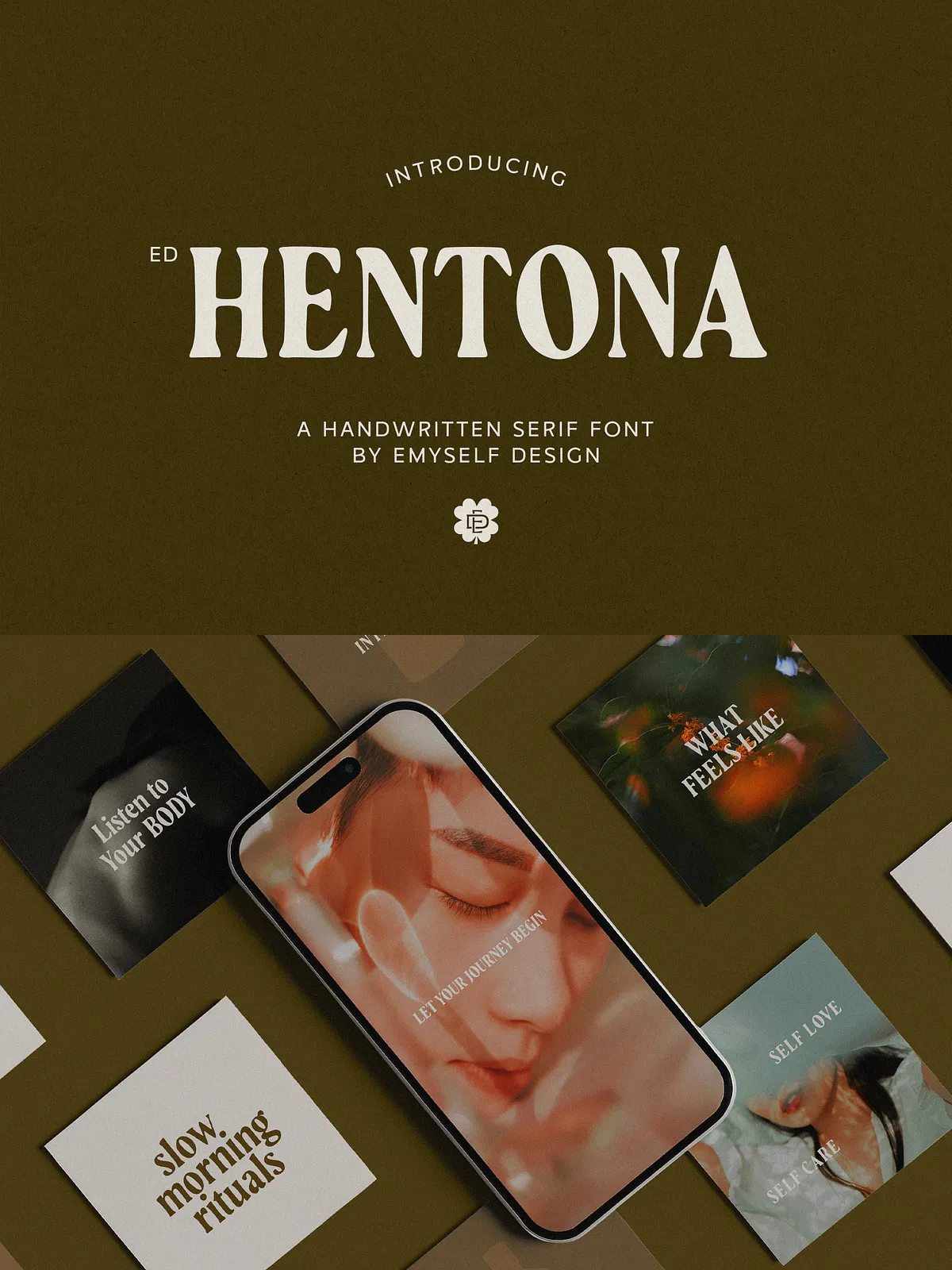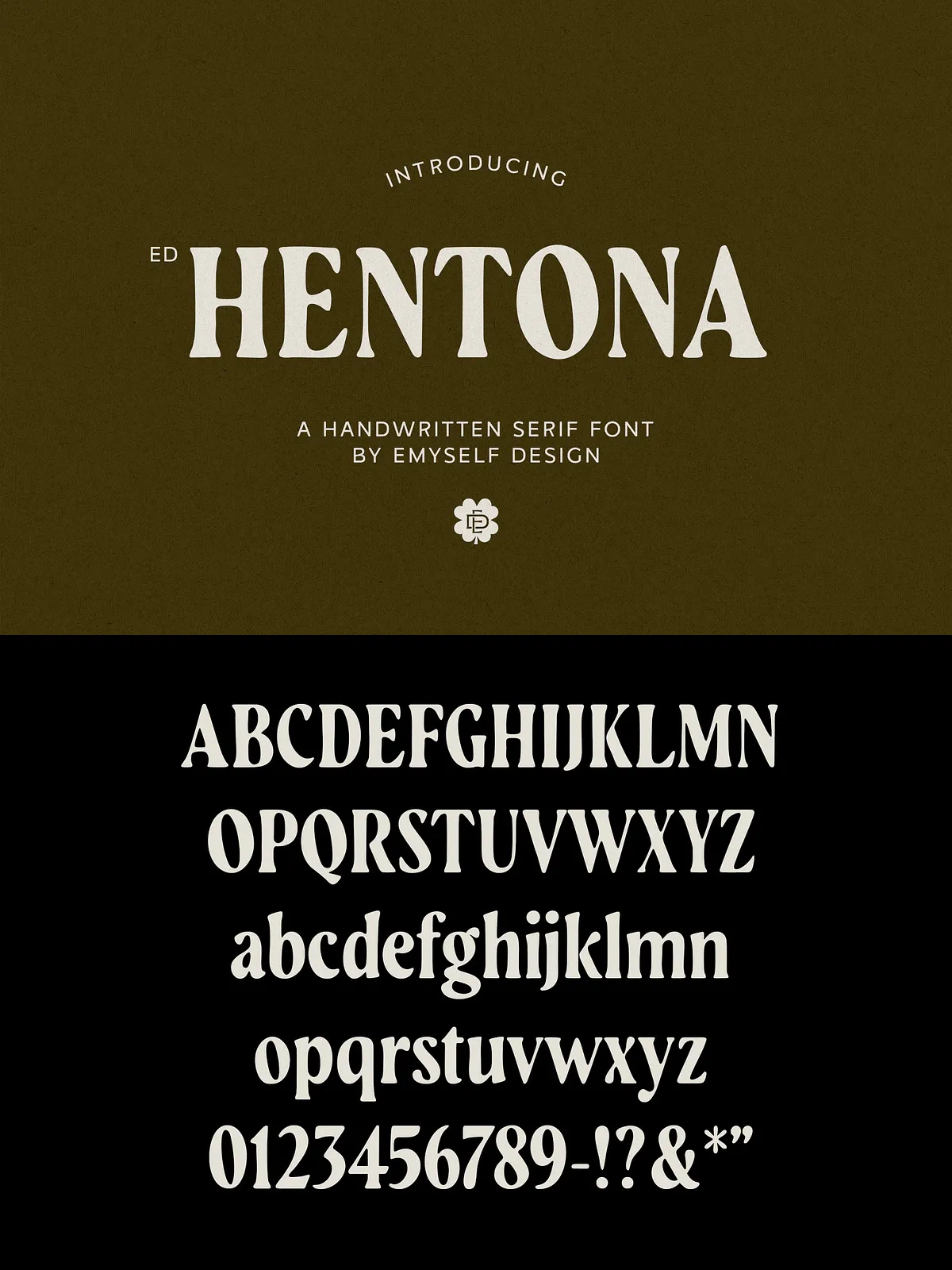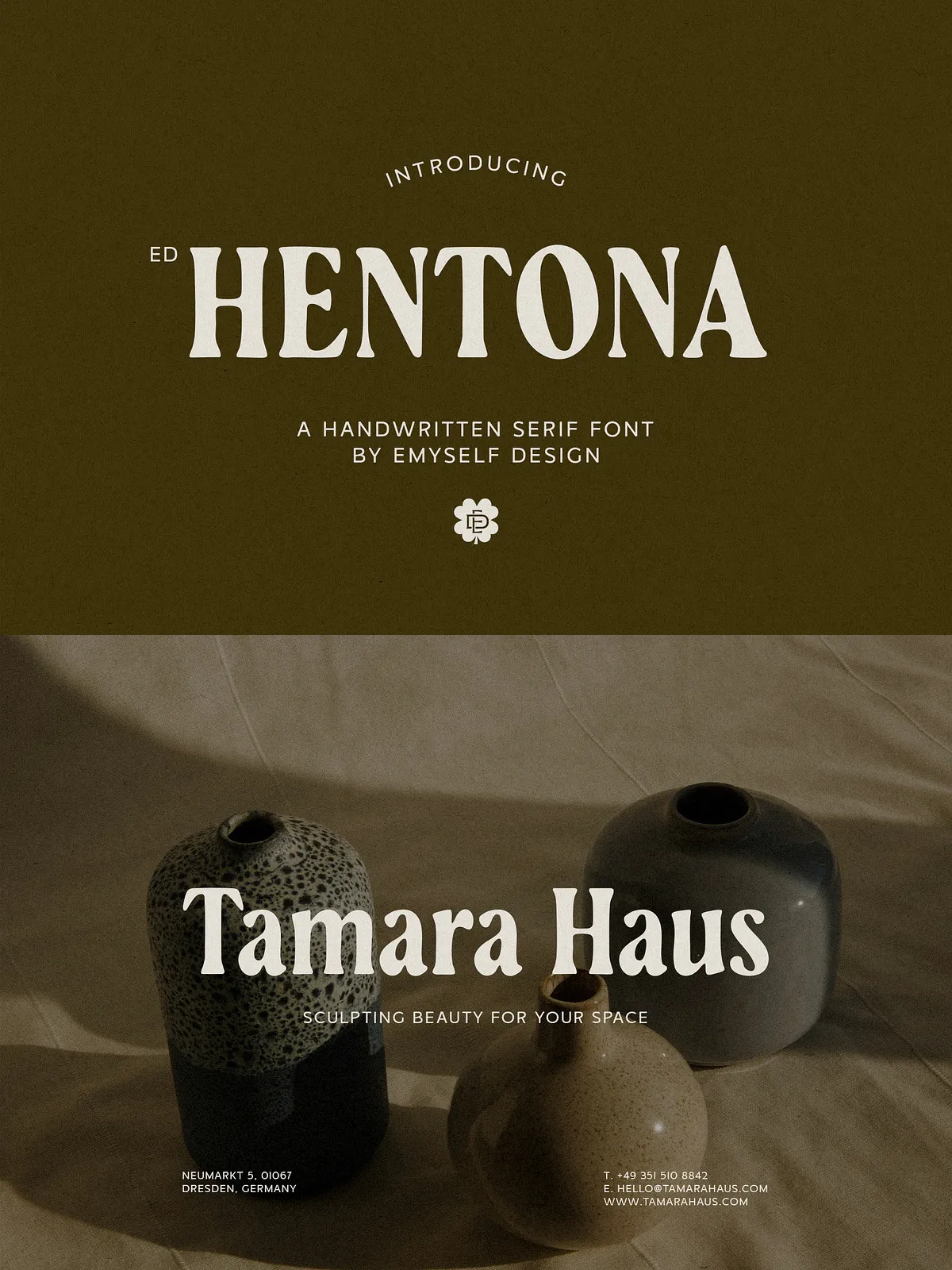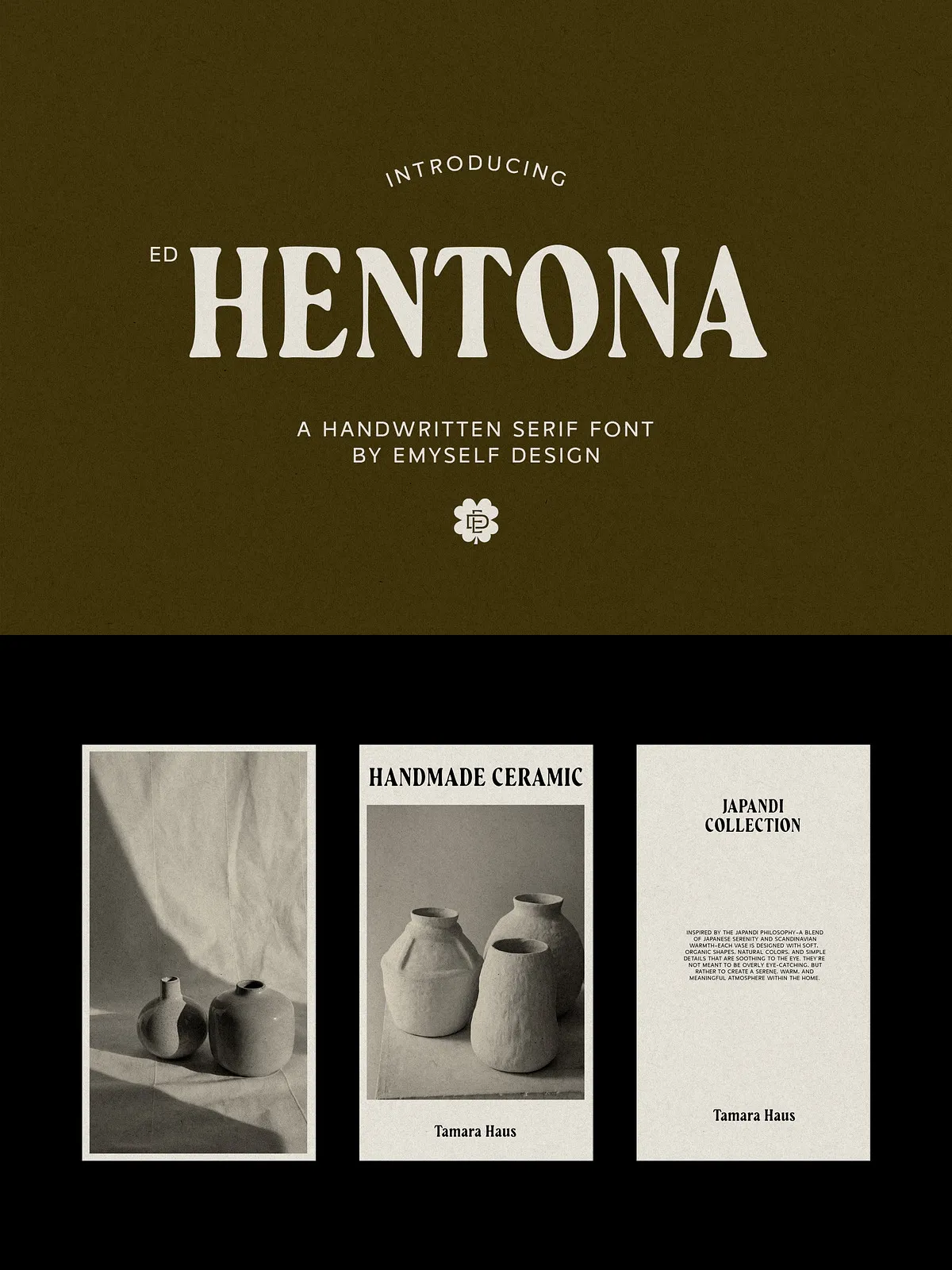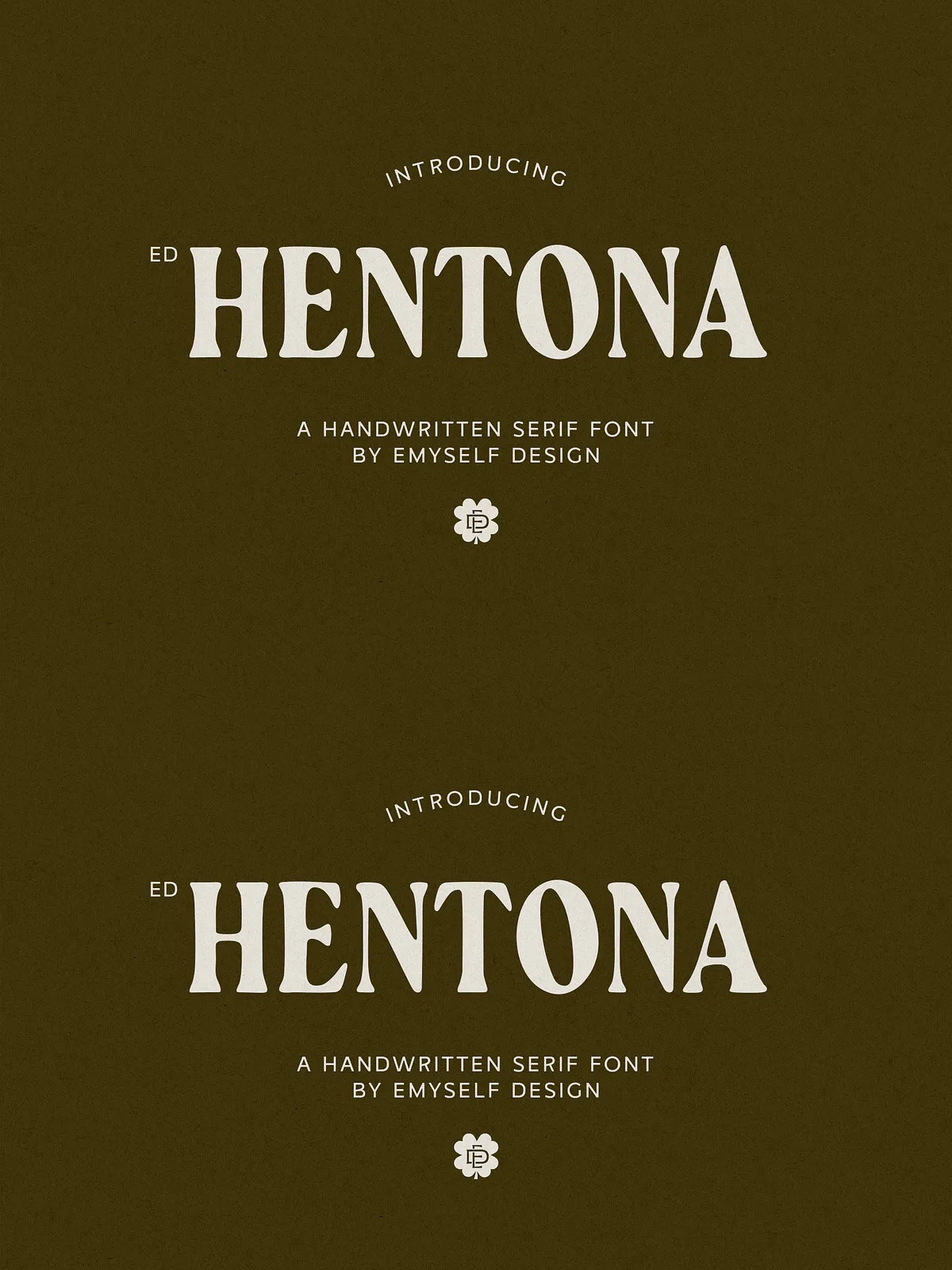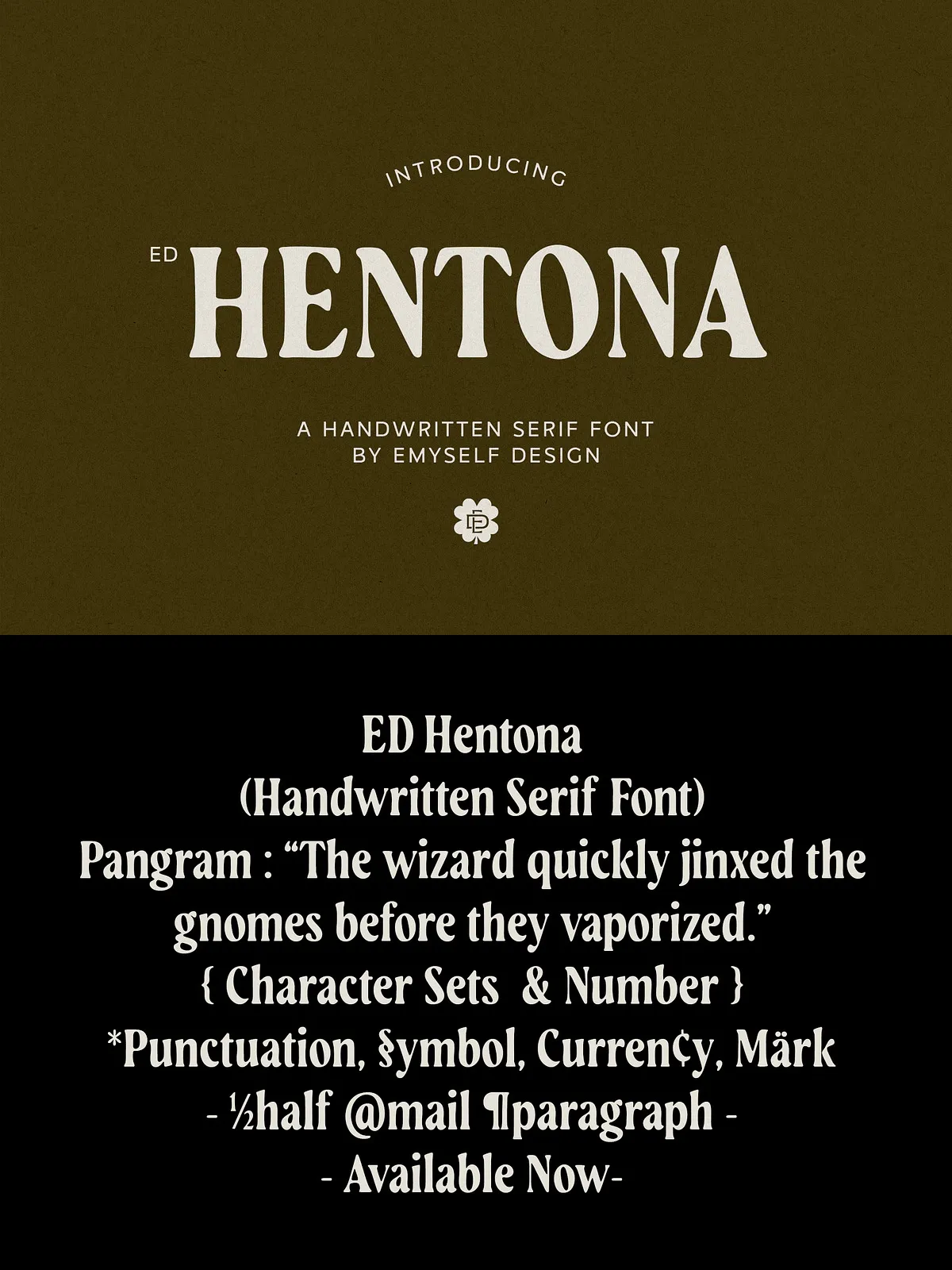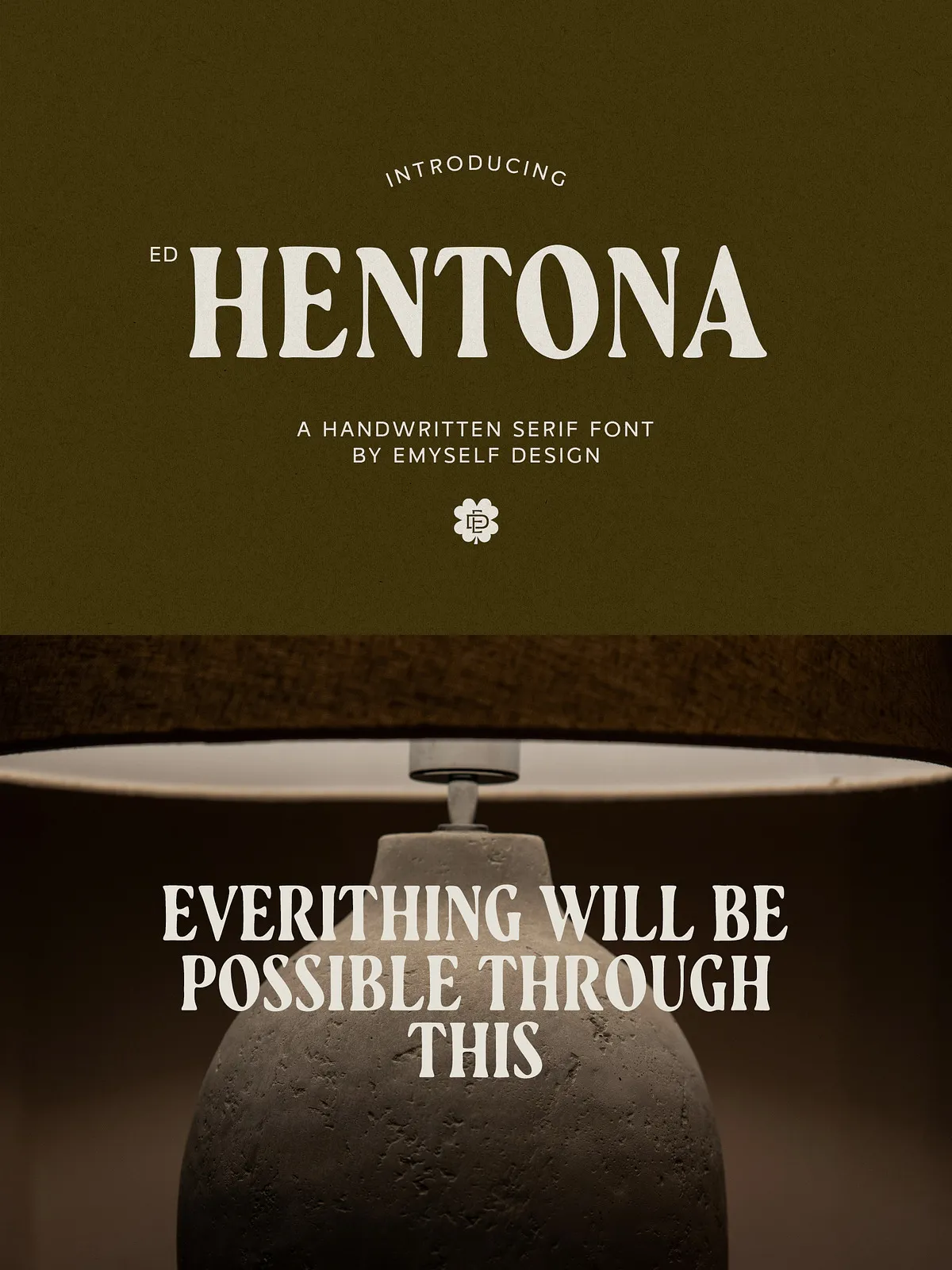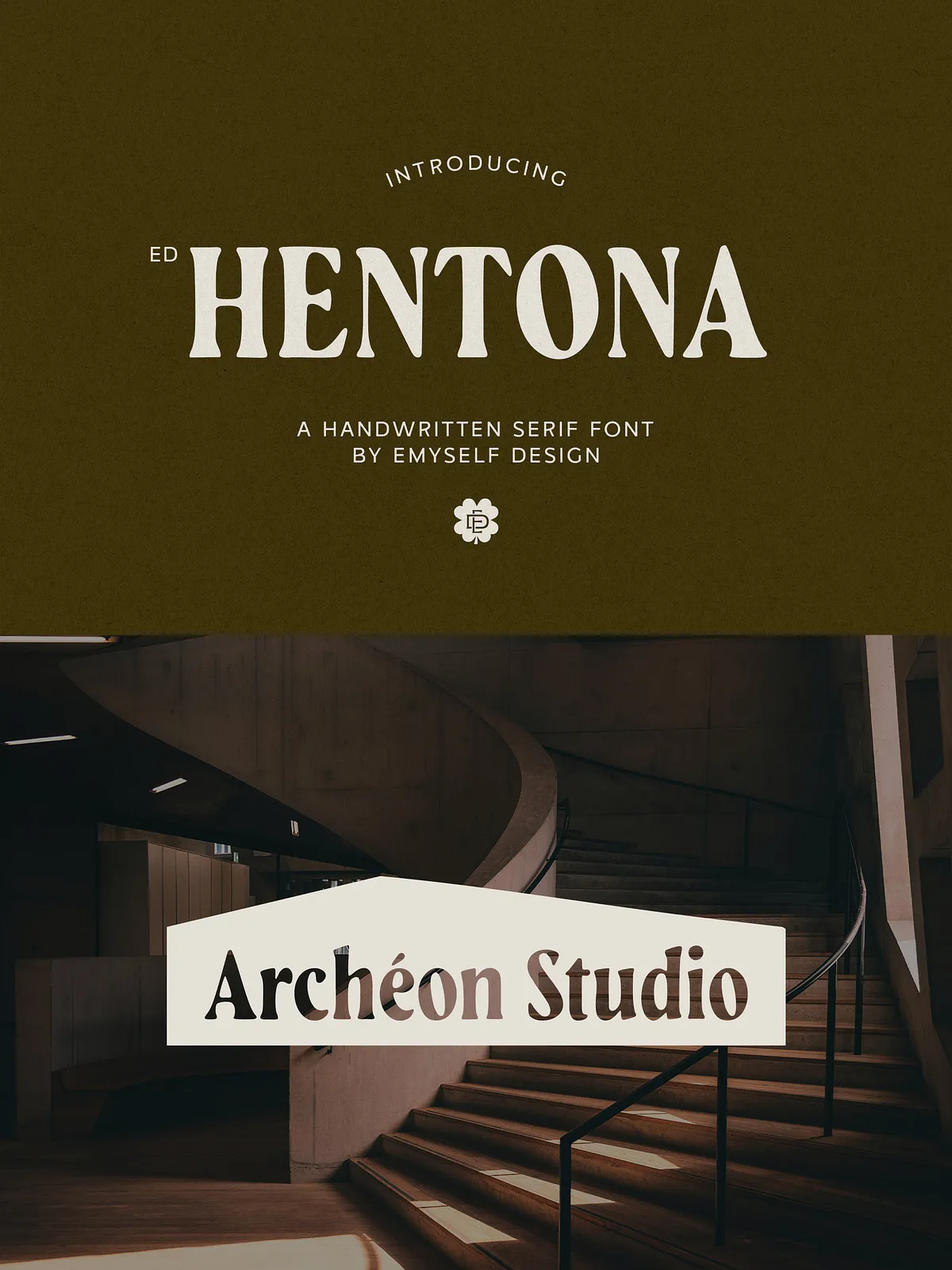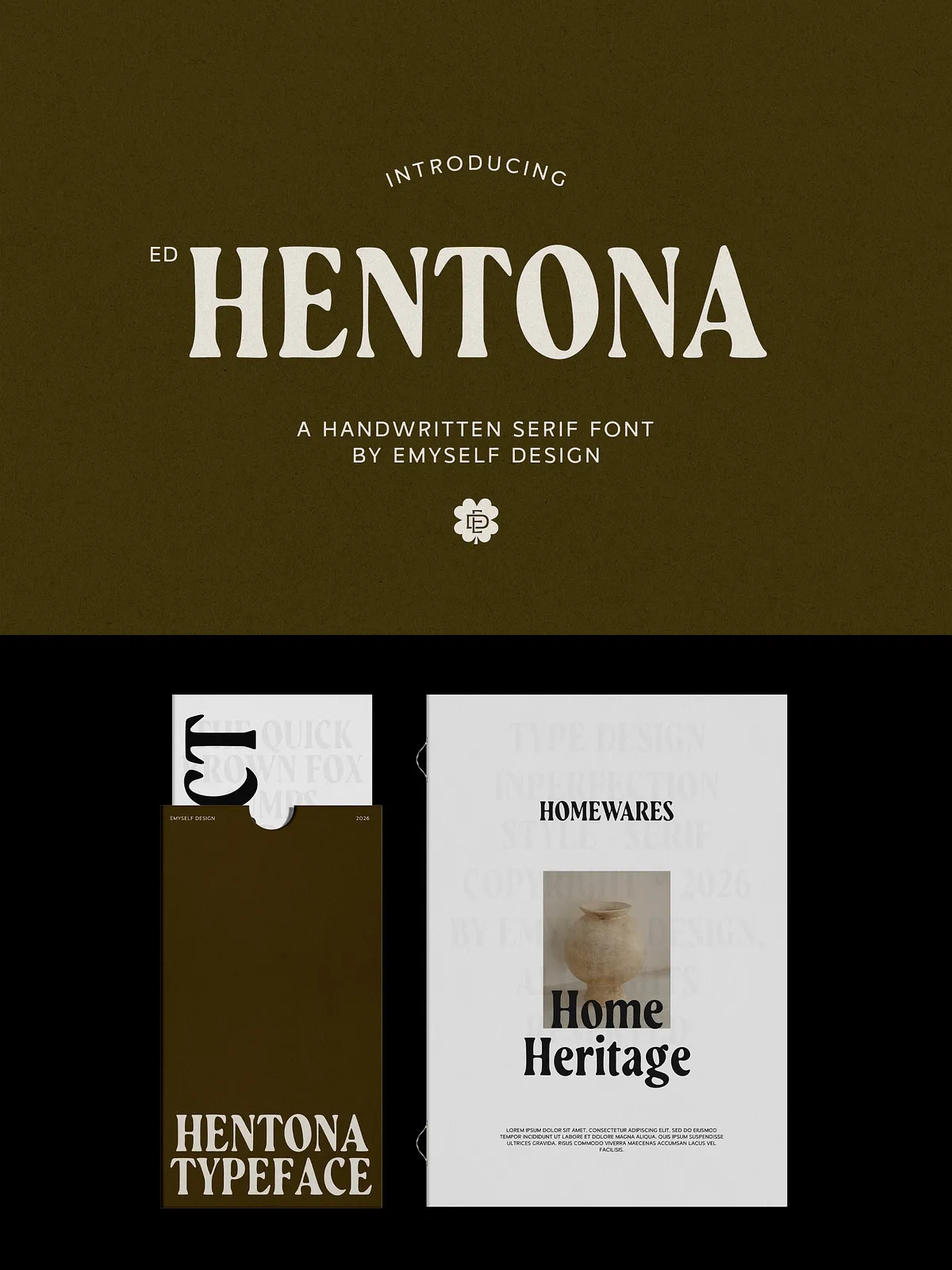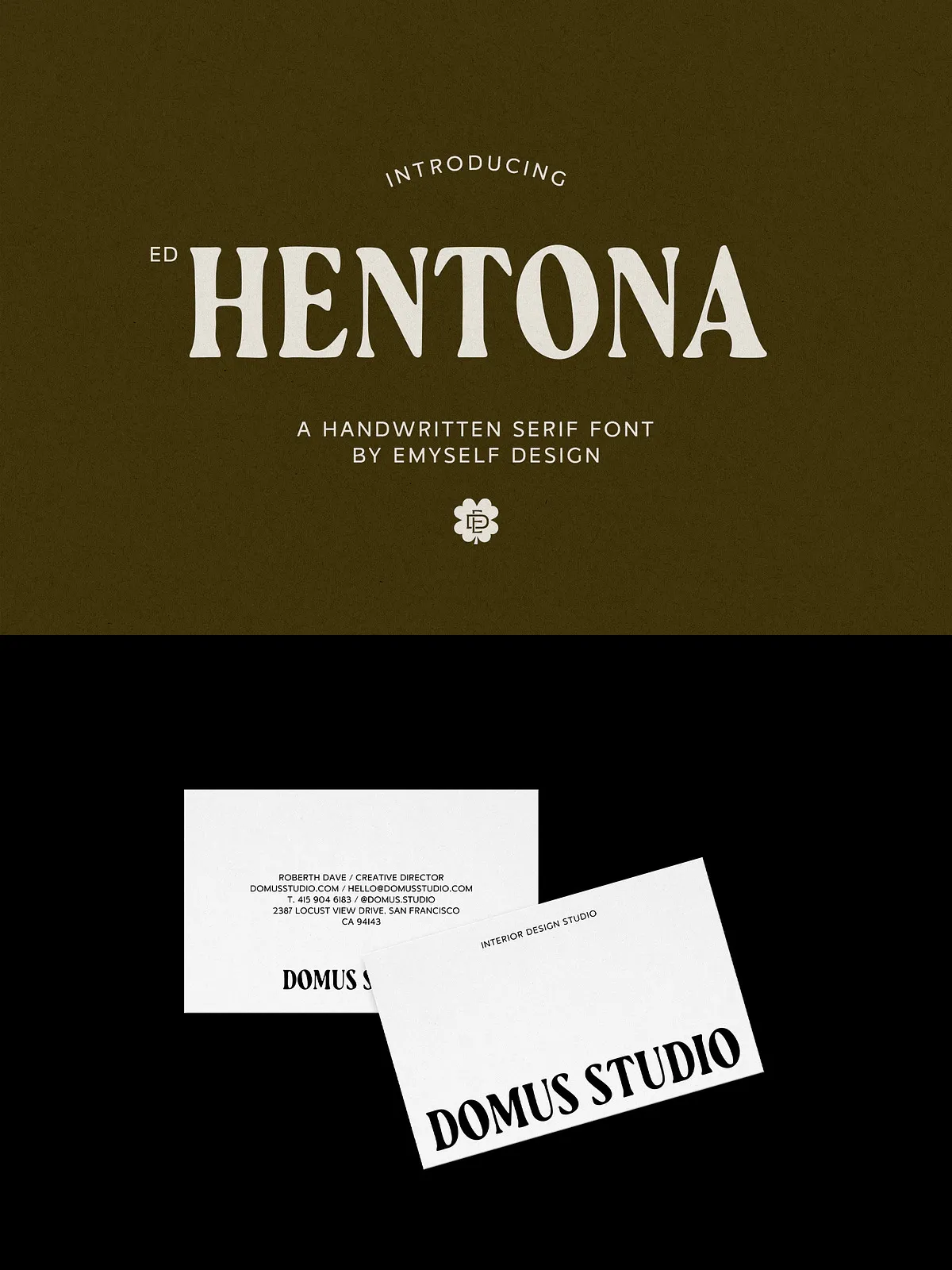
ED Hentona is a serif typeface drawn to preserve the subtle imperfections and organic motion of hand-lettering. Each curve and stroke carries a tactile quality that actively communicates warmth, authenticity, and personality. Instead of appearing machine-perfect, ED Hentona reads as crafted by a human hand—making it an ideal choice for designers who want typography that feels lived-in, expressive, and sincere.
Design Character & Inspiration
Purposeful Imperfection
ED Hentona takes inspiration from traditional print techniques, vintage signage, and artisanal letterpress. The design balances readable proportions with slightly irregular terminals, textured serifs, and nuanced stroke contrasts. These intentional details enhance visual interest and create a distinctive voice without sacrificing clarity at display and headline sizes.
Tonal Applications
Deploy ED Hentona to convey nostalgia, craftsmanship, or boutique sophistication. It performs strongly in editorial headlines, product labels, and identity systems that require a characterful yet legible serif. The typeface reads as both refined and approachable, giving brands a grounded, human-forward presence.
Features
Production-Ready Details
- Total Glyphs: 369 thoughtfully designed glyphs covering upper and lowercase letters.
- Character Sets: Complete uppercase and lowercase alphabets with consistent rhythm and flow.
- Punctuation & Marks: Full set of punctuation, diacritics, and typographic marks for clean typesetting.
- Symbols: Common symbols included for flexible layout use.
- Kerning & Metrics: Professionally tuned kerning pairs and metrics ensure reliable composition across sizes.
- Multilingual Support: Extended Latin coverage to support multiple languages and regional characters.
Perfect For
Primary Use Cases
- Logos and brand identity systems that require authentic character
- Product packaging and labels for boutique, food, and beverage brands
- Editorial headlines, magazine covers, and book jackets
- Print collateral including posters, tags, and stationary
- Wedding invitations and event materials with a handcrafted aesthetic
- Social media graphics that need a warm, recognizable typographic voice
- Fashion and lifestyle branding seeking a vintage or artisanal tone
How to Use ED Hentona Effectively
Design Tips and Pairing Suggestions
- Use ED Hentona as a display or headline face—its character shows best at larger sizes where the hand-drawn details read clearly.
- Pair the typeface with a neutral sans-serif for body copy to maintain hierarchy and legibility.
- Apply subtle textures or paper backgrounds sparingly to amplify the handcrafted feel without compromising clarity.
- Mix alternates and stylistic choices to build unique wordmarks or to prevent repetitive letterforms in long headlines.
- Tweak tracking and leading at large sizes to preserve rhythm; tighten slightly for compact lockups or logos.